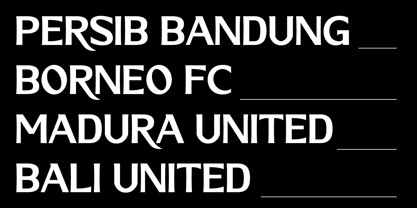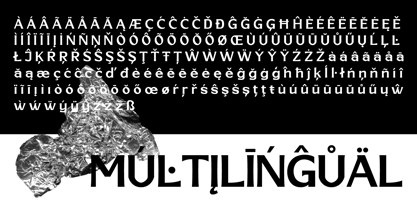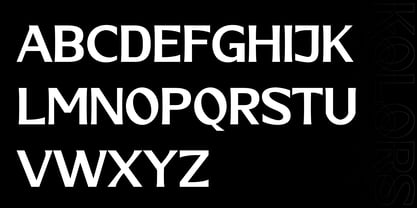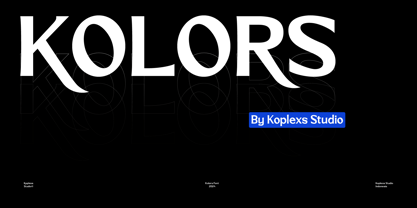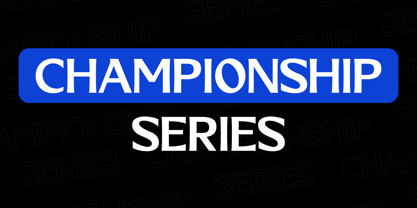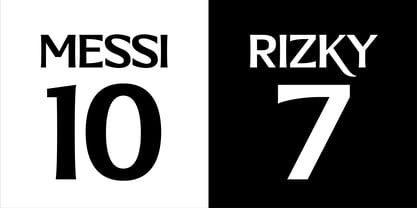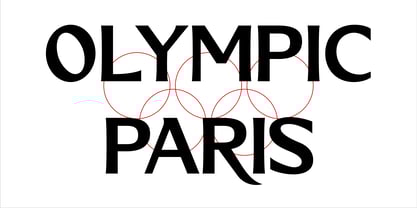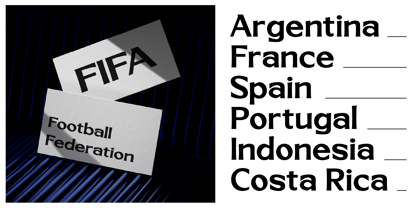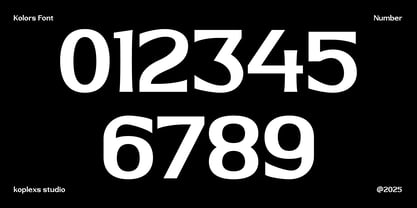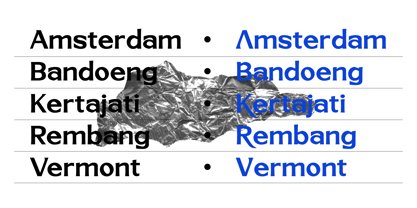
Kolors
by Koplexs Studio
Kolors Font | Modern Aesthetic Typeface
Kolors Font by Koplexs Studio is a modern and aesthetic typeface created for designers who want to combine bold character with refined elegance. Belonging to the family of modern fonts, Kolors delivers a unique rhythm with smooth curves and stylish edges, making it one of the coolest fonts for contemporary design.
This cool font works beautifully as a logo font, headline type, or editorial display. Its elegant structure and luxury appeal make it an excellent choice for fashion campaigns, lifestyle branding, sports graphics, and creative advertising. With multilingual support and distinctive alternates, Kolors is a versatile style font that adapts seamlessly to both print and digital platforms.
More than just a typeface, Kolors Font is a design tool that transforms text into a visual identity. Whether you are building a brand, creating posters, or designing digital content, Kolors gives your work the boldness and sophistication it deserves.
Features
• Uppercase and lowercase characters
• Extensive multilingual support
• Stylish alternates and unique stroke details
• Strong readability in print and digital
• Elegant design with modern personality
Perfect For
• Logos and brand identities
• Fashion and luxury design
• Posters, flyers, and creative campaigns
• Sports jerseys and editorial headlines
• Social media content and digital marketing
Designers: Ahmad Muslimin
Foundry: Koplexs Studio